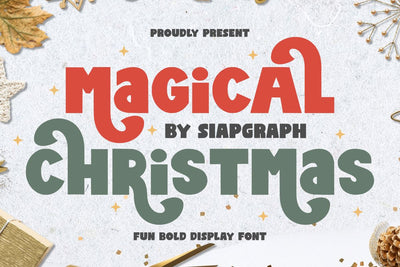
Magical Christmas - Fun Bold Display Font
Magical Christmas is a fun bold display font that is modern and bold. This font is ready to use in any project. Perfect for logotypes, Stickers, Packaging designs, Cricut Projects, headlines, brand identities, industrial t-shirts or apparel, posters, magazines, books, YouTube, Instagram, websites or your creative design projects.